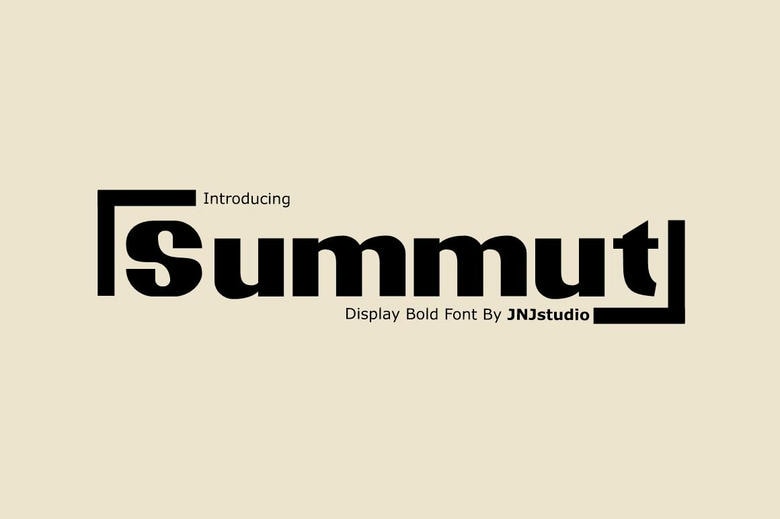
Summut Font
Summut is an extroverted display font with the express mission of creating a striking call – it will work in a poster or on a sticker. The attached type is thick and bold with almost geometric shapes of the letters and sharp cut lines giving the typeface a very modern outlook. It is definitely suitable for headline, poster, brand, logos and any design that requires a timely statement thorough the kinetic curves and sharp angles.
The display of Summut is remarkable in both online and offline double-page formats; it is versatile that will suit many types of creative endeavors. Thus you have a choice when it comes to choosing typography; to capture attention or to make your design more modern and creative, Summut adds that professional touch.
Summut Sans Serif Font